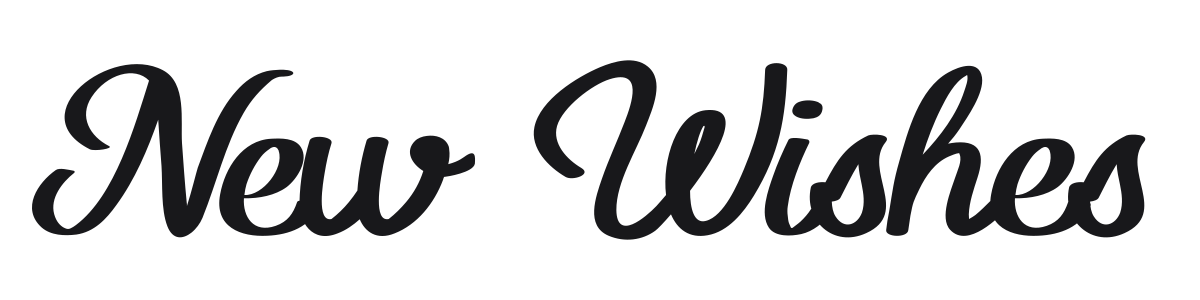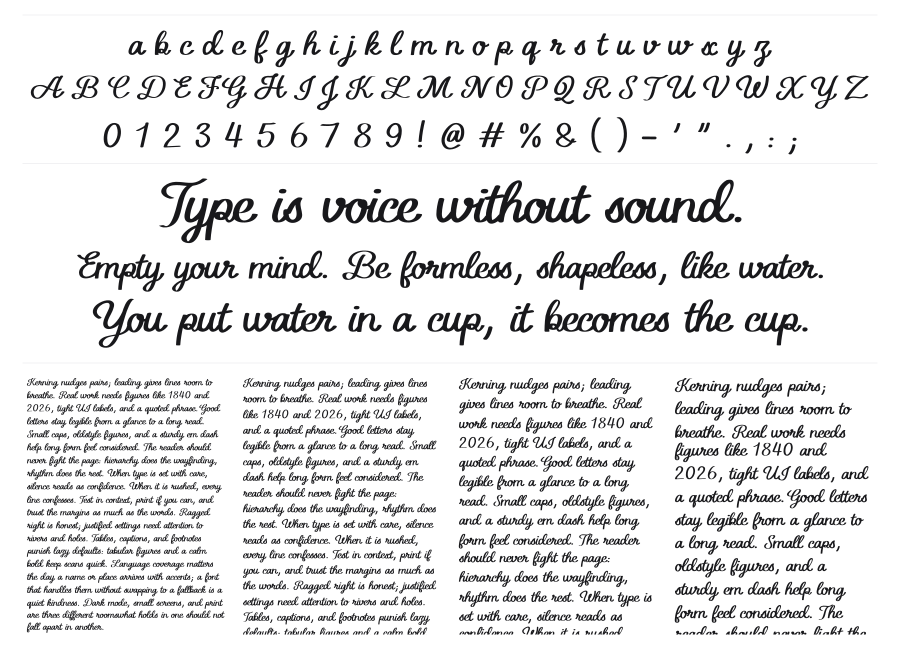
New Wishes
New Wishes is a bold casual script with smooth, looping strokes and a confident hand-lettered feel. It draws from mid-century sign-painting traditions, with fluid connections between characters and generous rounded forms that feel both polished and personal. Great for branding, packaging, and any project that needs warmth without going formal.